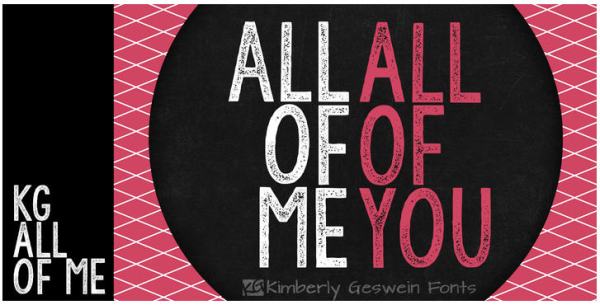
Font Frenzy: KG All of Me
We’ve talked about Kimberly Geswein before—she’s a very talented font designer who generously allows commercial use for (usually) $5 per font. KG All of Me is one of her newest fonts and it’s on sale right now for $4. This one’s great for those popular blackboard designs. Have fun!